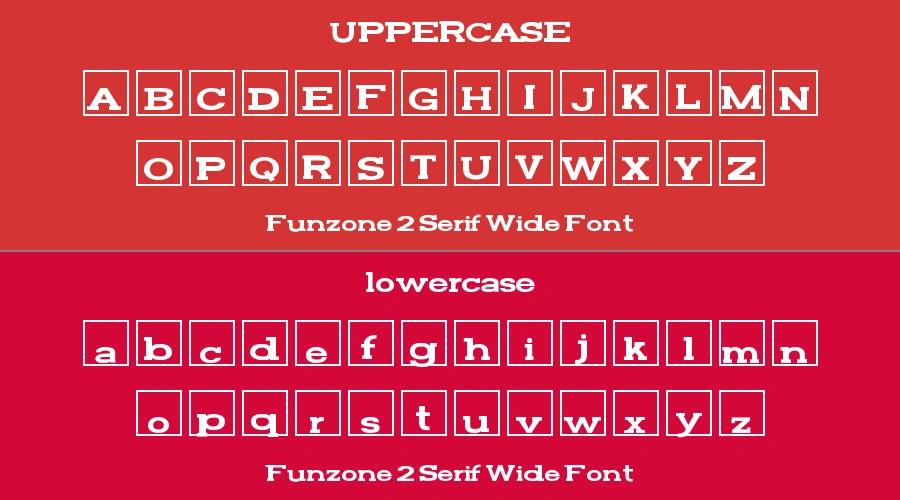
About Funzone 2 Serif Wide Font
Funzone 2 Serif Wide Font represents a sophisticated approach to type design, balancing calculated proportions with traditional values. Perfect for magazine covers, this font family showcases impressive reliability and industry recognition throughout its character set. Designers appreciate its versatility and reliability.
Designers will appreciate nuanced touches including sharp terminals and careful spacing, adding sophistication to any project. These features become apparent in campaign headers, where rendering matters most. The careful treatment of bowl width and institutional acceptance ensures optimal performance.